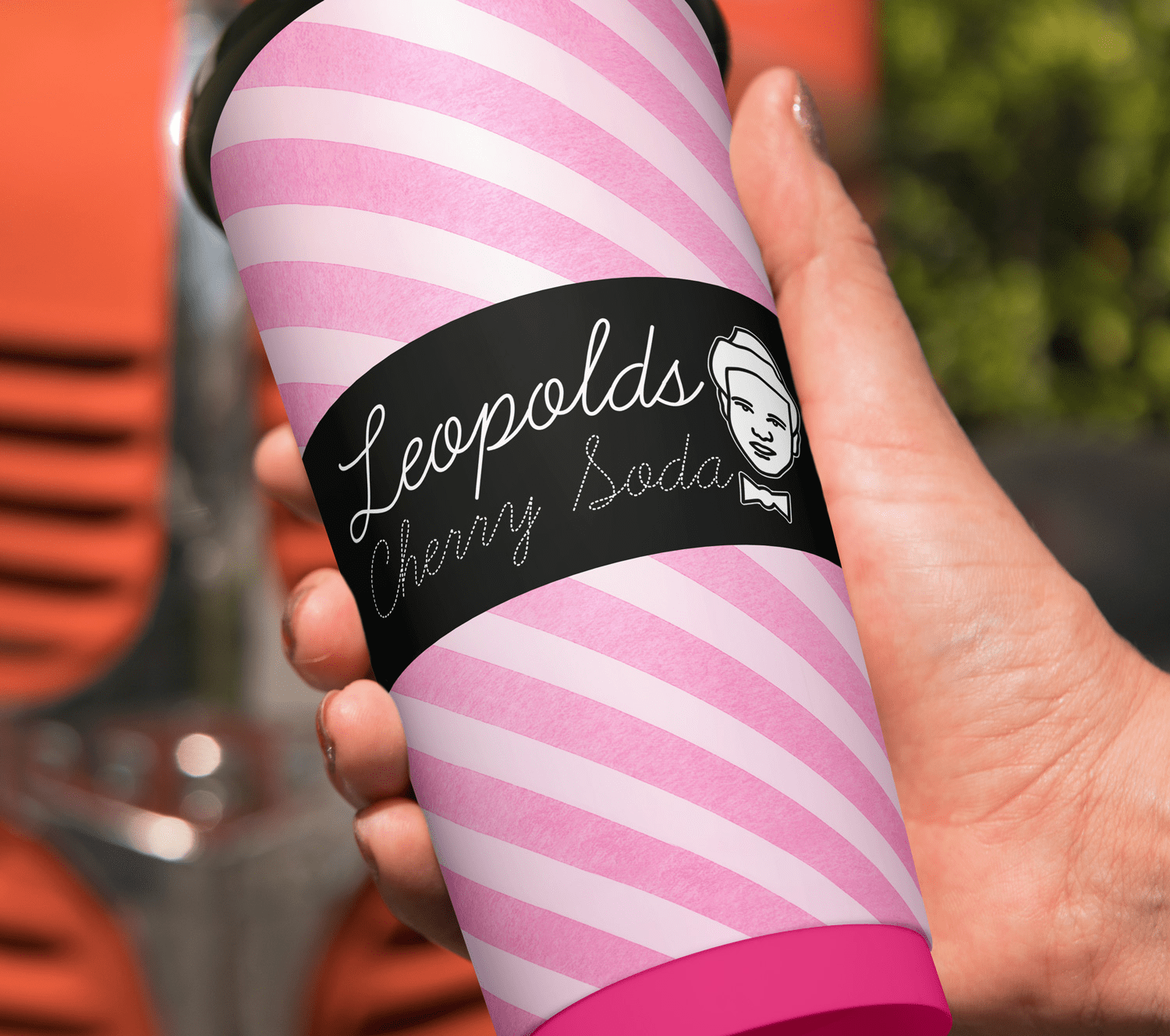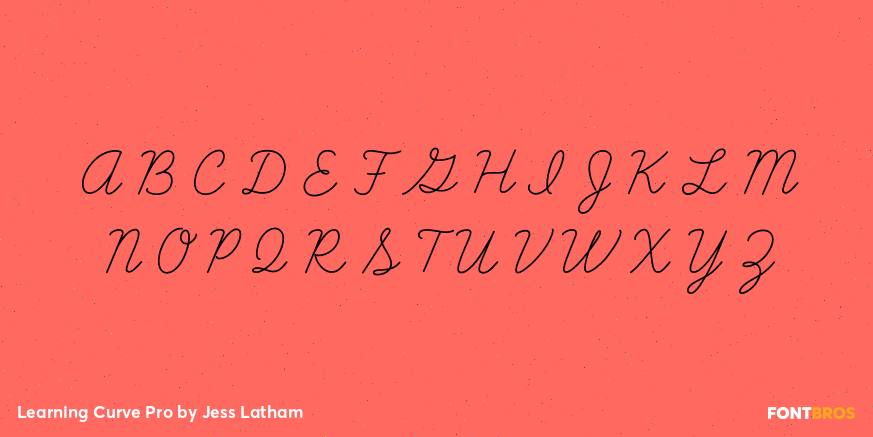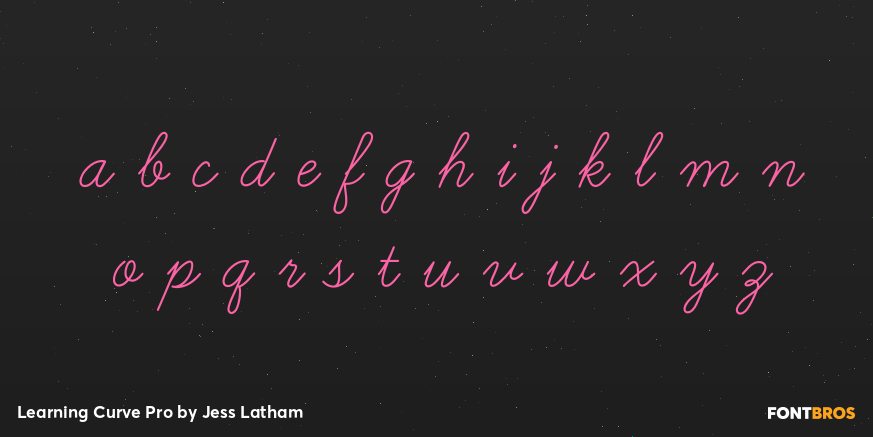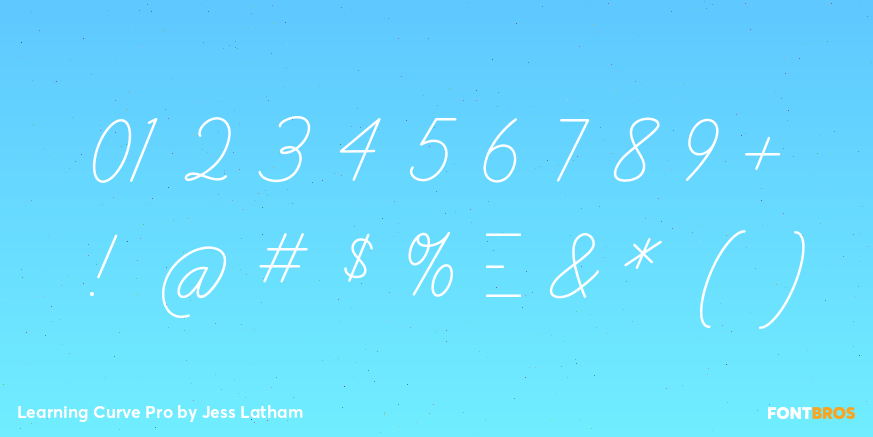
Learning Curve Pro
Font Family by Jess Latham
This font mimics traditional cursive lettering practice worksheets but is more modernized and a style that I developed from my own handwriting. What I like most about this font is that it looks like a robot made it. I'm not sure if you'd want to actually use it to teach penmanship, but who am I to say?